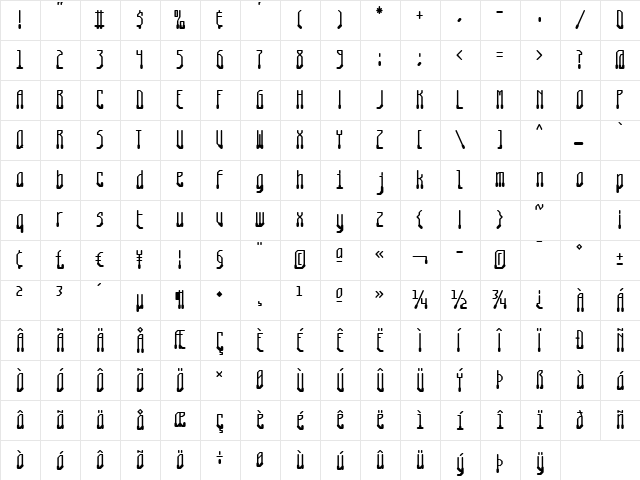
ZenoPotion AOE Regular
Design Context for ZenoPotion AOE Typeface
ZenoPotion AOE is a composed and adaptable typeface that performs quietly and consistently across a wide range of design contexts.